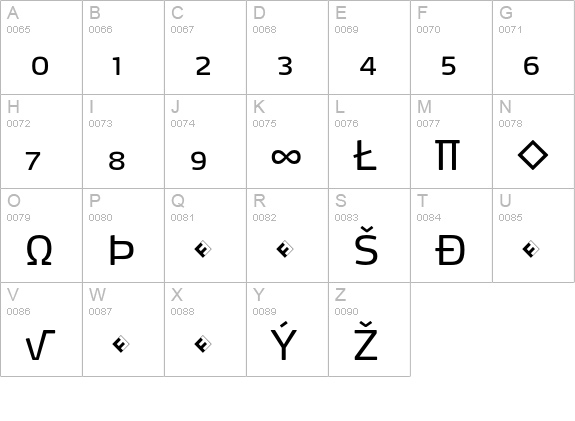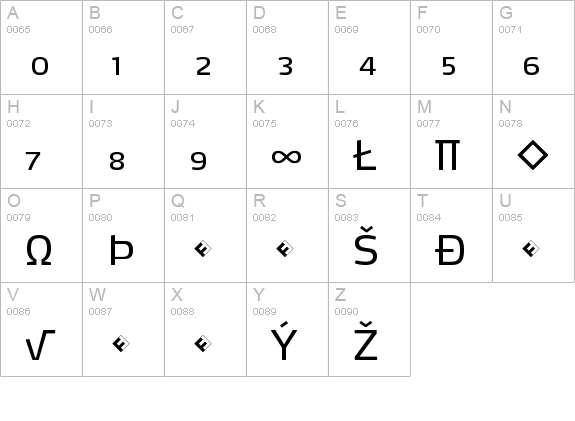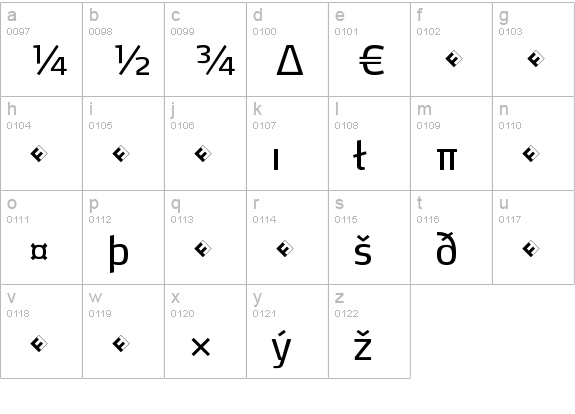
Max-RegularExpert Font Details
Introducing Max-RegularExpert font, a versatile and stylish typeface designed to elevate your design projects to the next level. With its sleek and modern appearance, Max-RegularExpert is perfect for a wide range of applications, from branding to editorial design. This font features clean lines and a timeless aesthetic that will give your work a professional and polished look. What's even better is that Max-RegularExpert is available for free download at FontsMarket.com. So whether you're a graphic designer, a marketer, or a blogger looking to add a touch of sophistication to your projects, this font is the perfect choice. Don't miss out on the opportunity to enhance your designs with the elegance and versatility of Max-RegularExpert font. Download it today and watch your creations come to life!